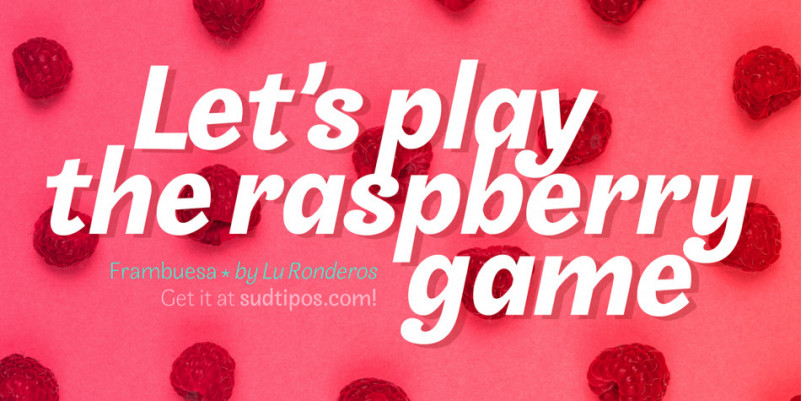
Frambuesa Font
Frambuesa is a half humanist-half geometric sans serif typeface that merges decorative curves with straight lines looking for a perfect balance. As pairs of opposites define harmony in nature, organic versus geometric are the foundations to this new font. The result is a solid, somewhat romantic, nostalgic type program based on the rhythm of a natural melody.